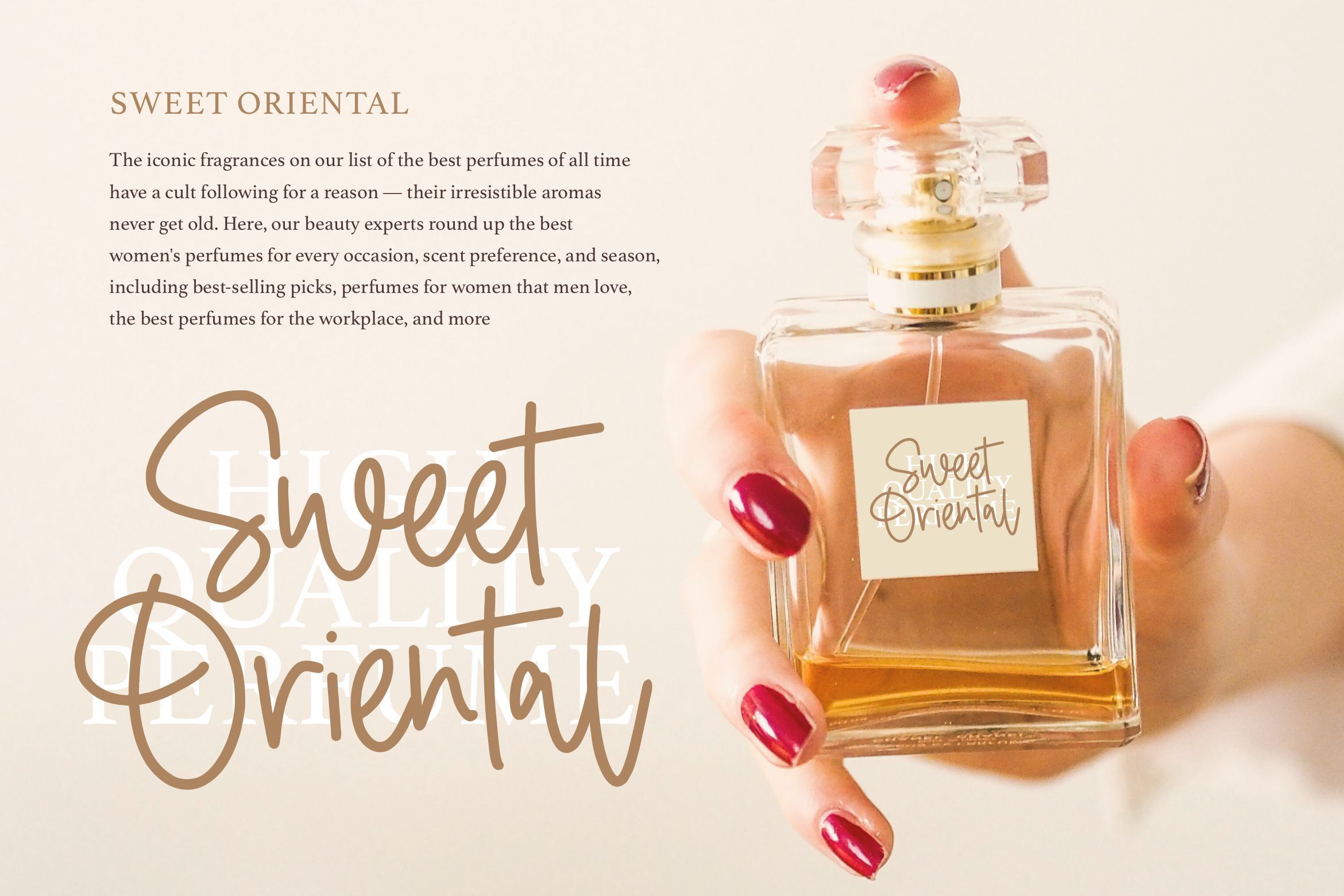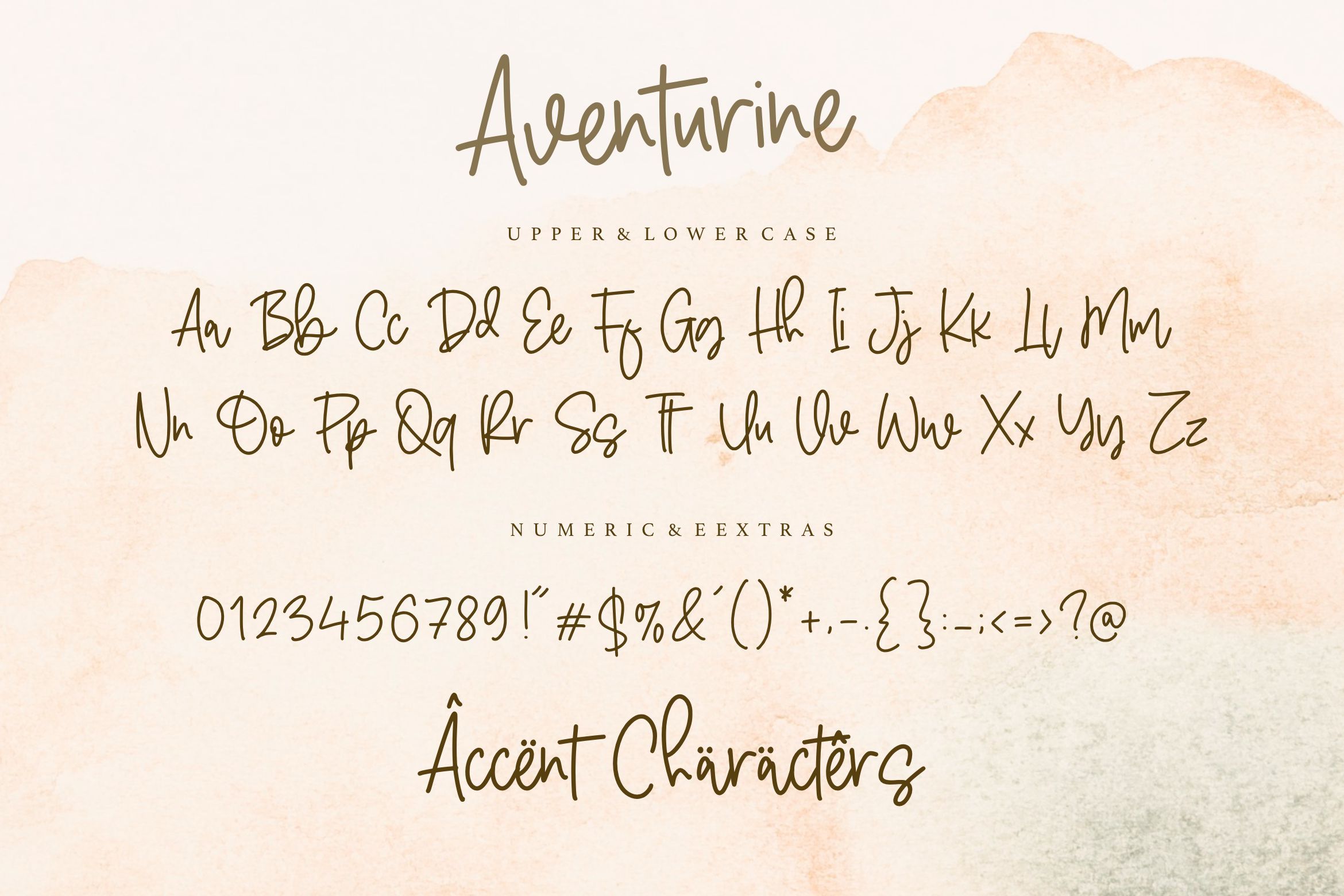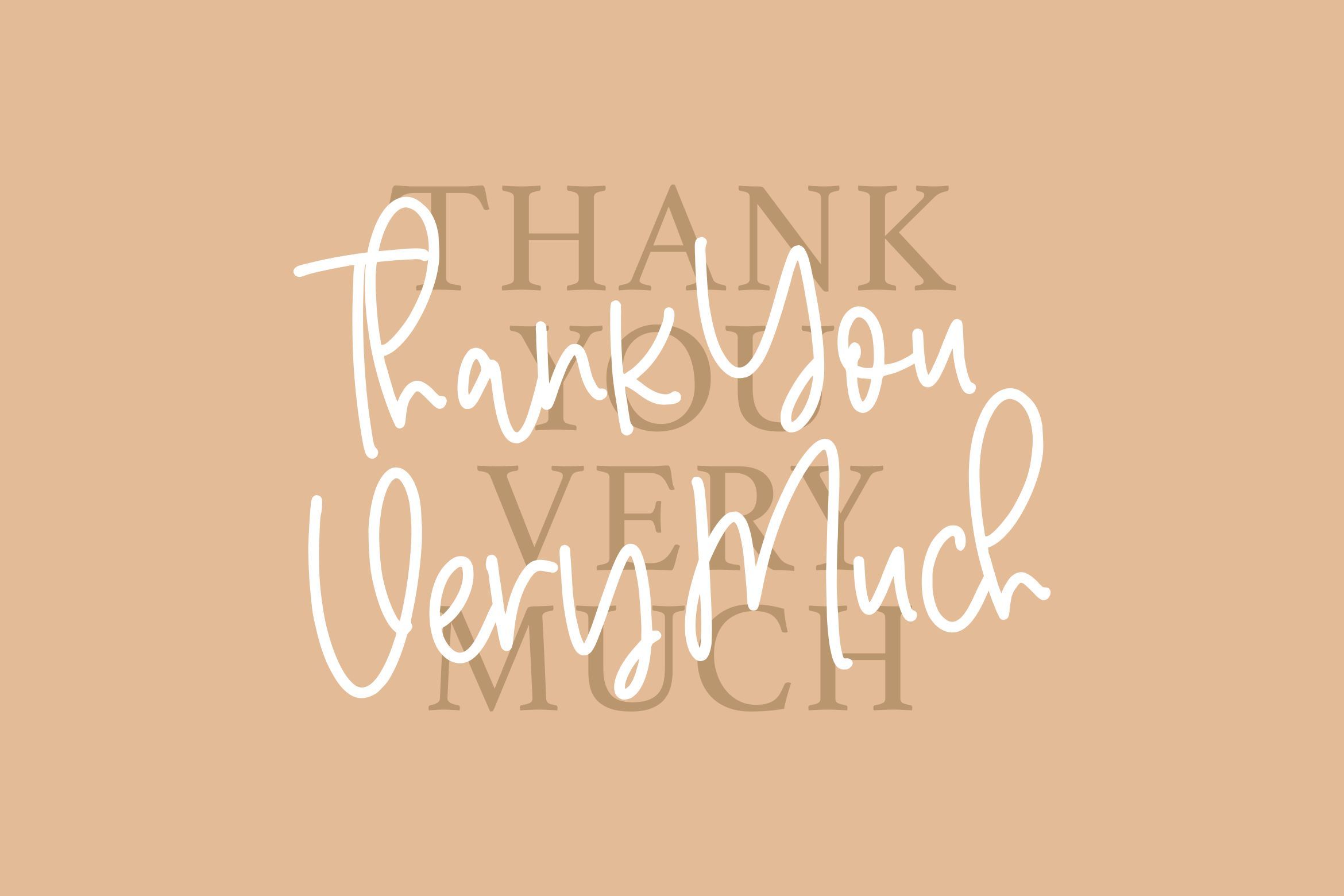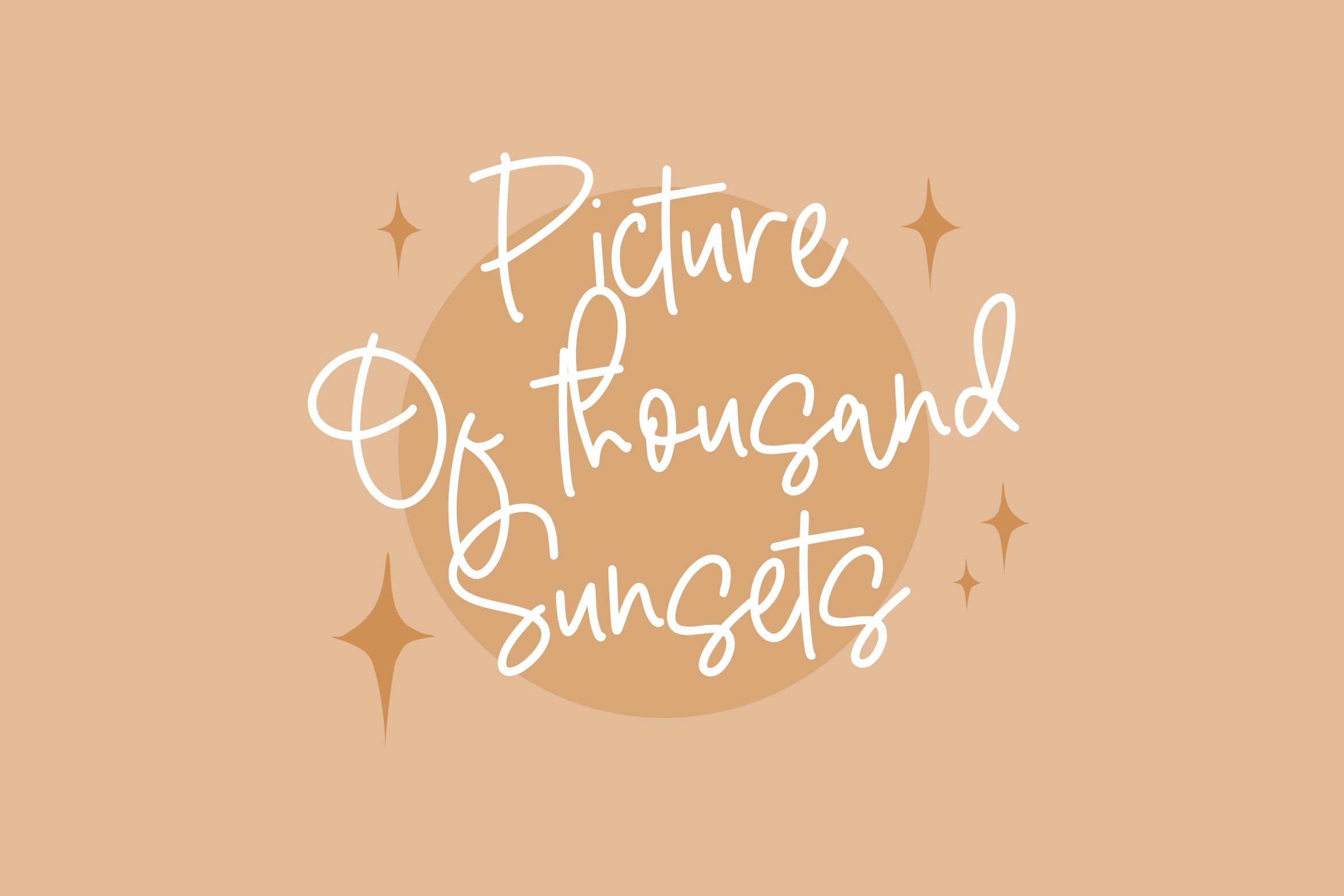
About Aventurine is a Monoline Handwritten Font
Introducing by Letterative Studio : Aventurine Font Aventurine is a Monoline Handwritten Font Aventurine is a trendy handwritten font. It is the best choice for creating eye catching logos, branding and quotes. Every letter has a unique and beautiful touch, which will make your design come alive! This font includes : TTF and OTF Aventurine also multilingual support Enjoy the font! Feel free to comment or feedback Send me PM or email Thank you!